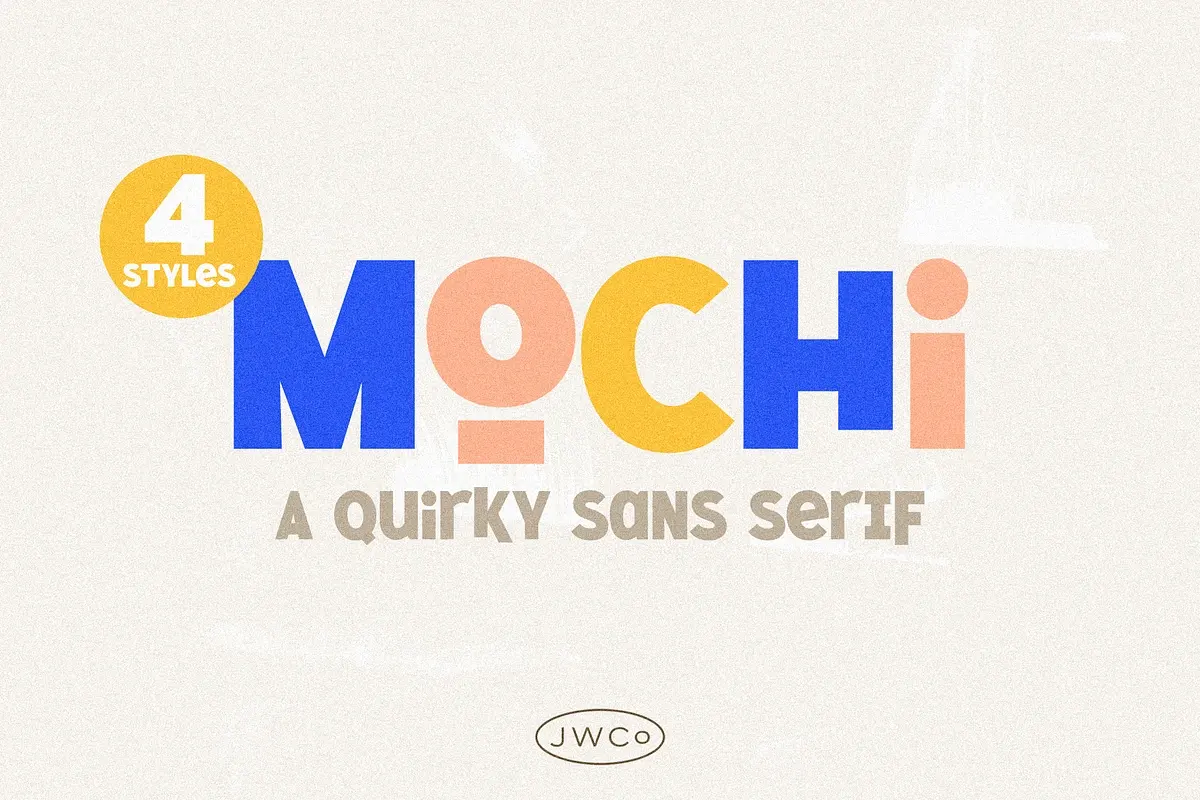
Mochi | A Quirky Sans (4 Styles) Free Download
Mochi | A Quirky Sans (4 Styles) Free Download is a playful and versatile sans-serif typeface designed by Jen Wagner. This font family includes four distinct styles—Regular, Rounded, Outline, and Extra Outline—making it suitable for a variety of creative projects such as quotes, logos, branding materials, and more.
A standout feature of Mochi | A Quirky Sans (4 Styles) Free Download is the inclusion of alternate uppercase letters. By typing in lowercase, you can access these alternates, allowing for a mix-and-match approach that adds a unique and fun touch to your designs.